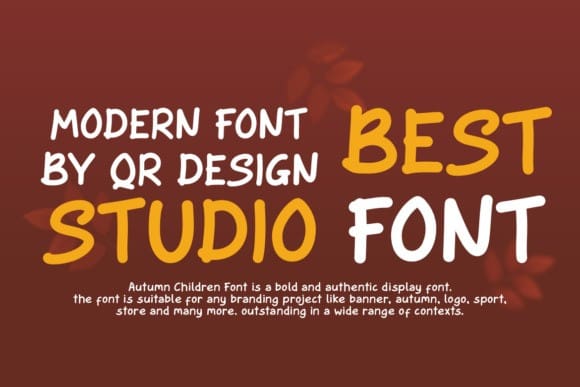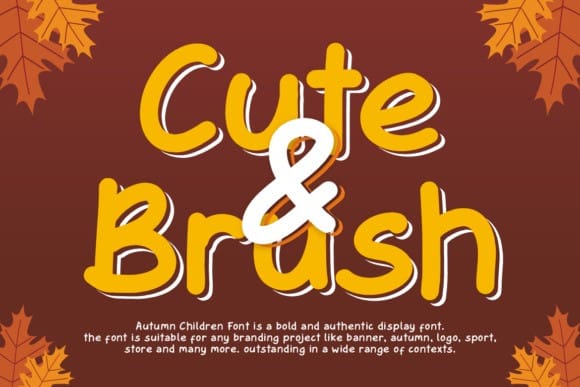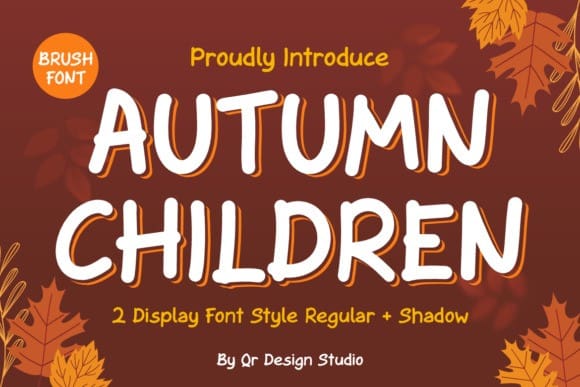
Autumn Children Font
Autumn Children Font is a bold and authentic handwritten font. It has beautiful and well balanced characters and as a result, it matches a wide pool of designs. Add it to your most creative ideas and notice how it makes them come alive!